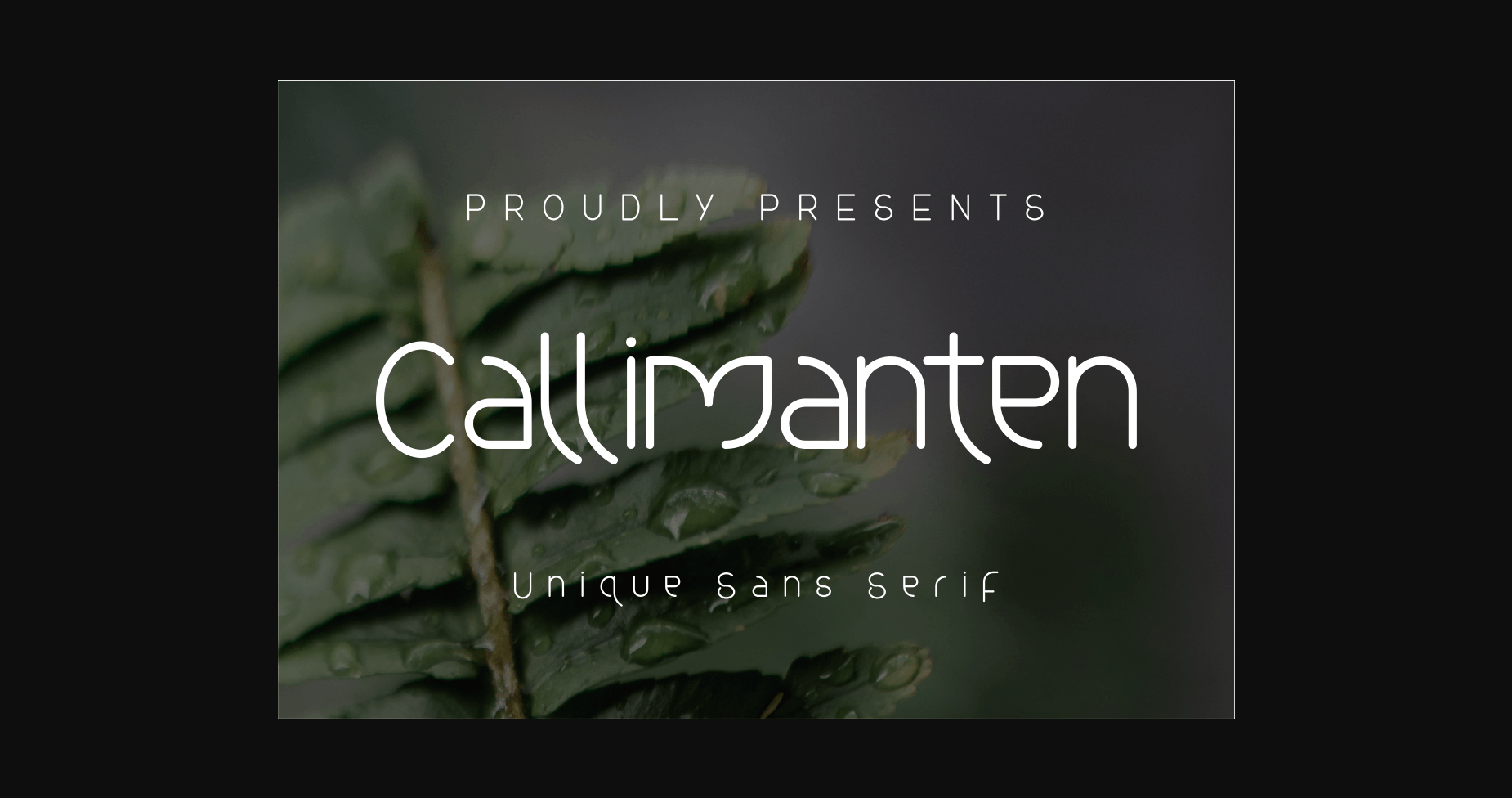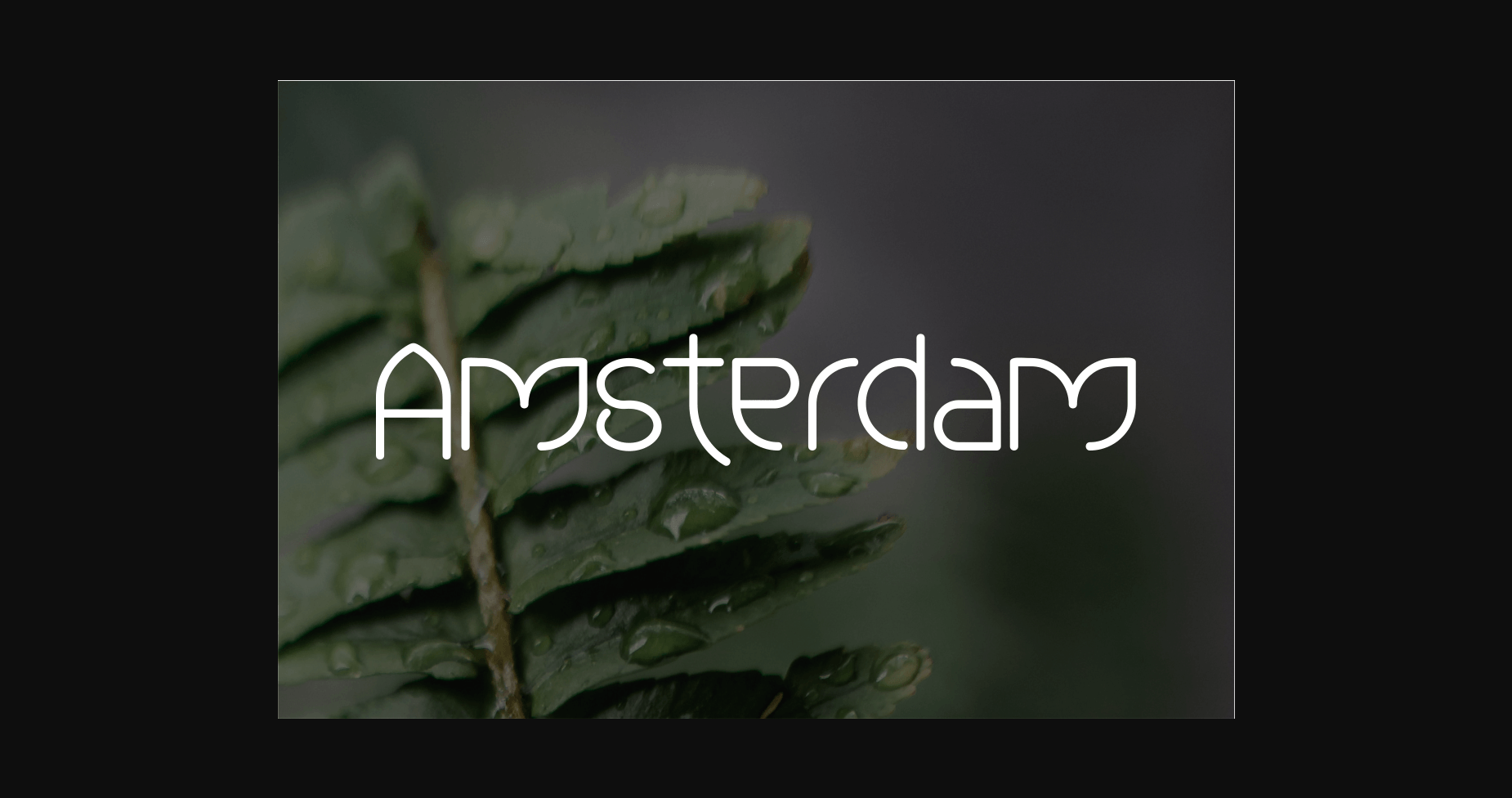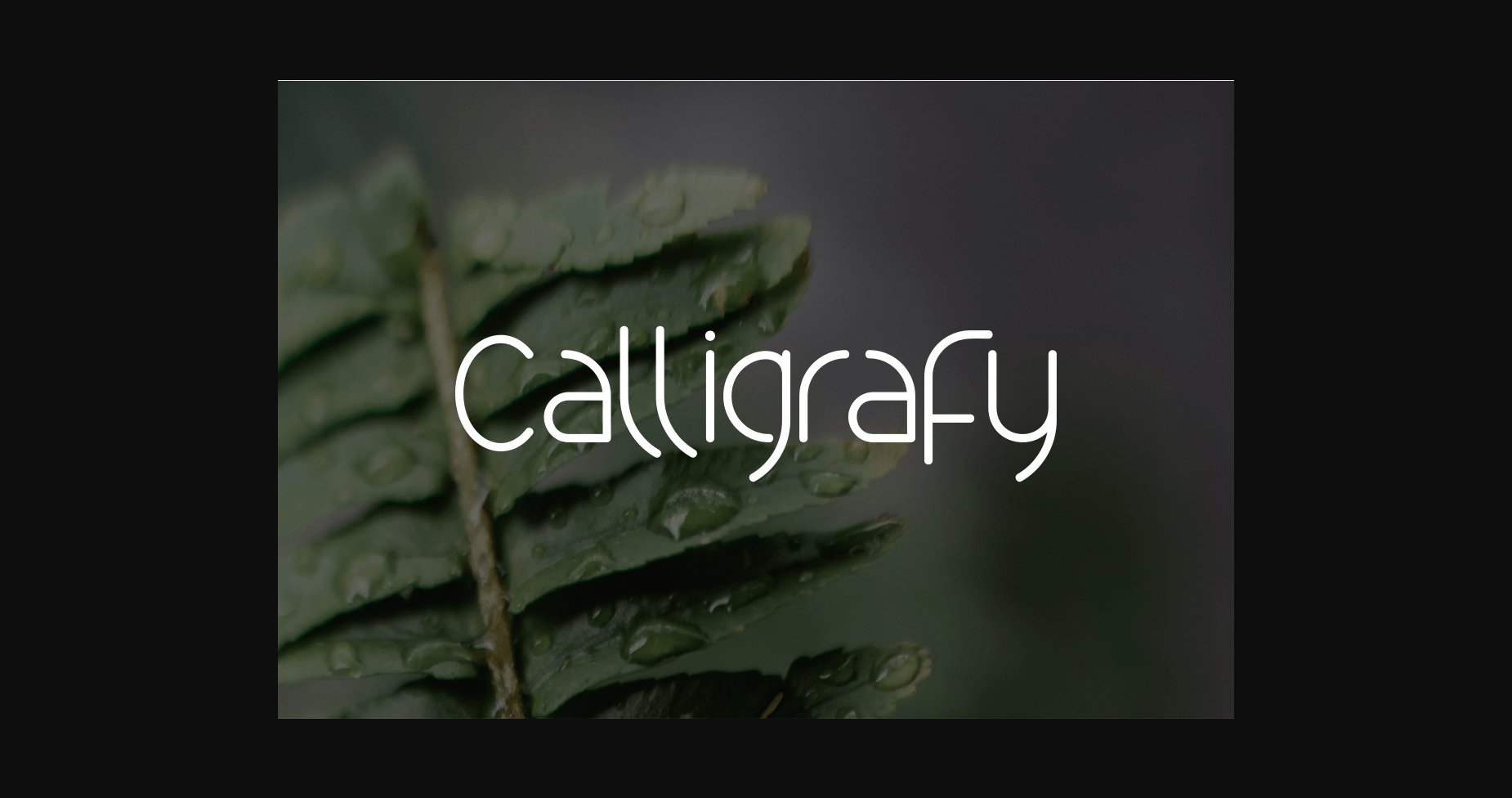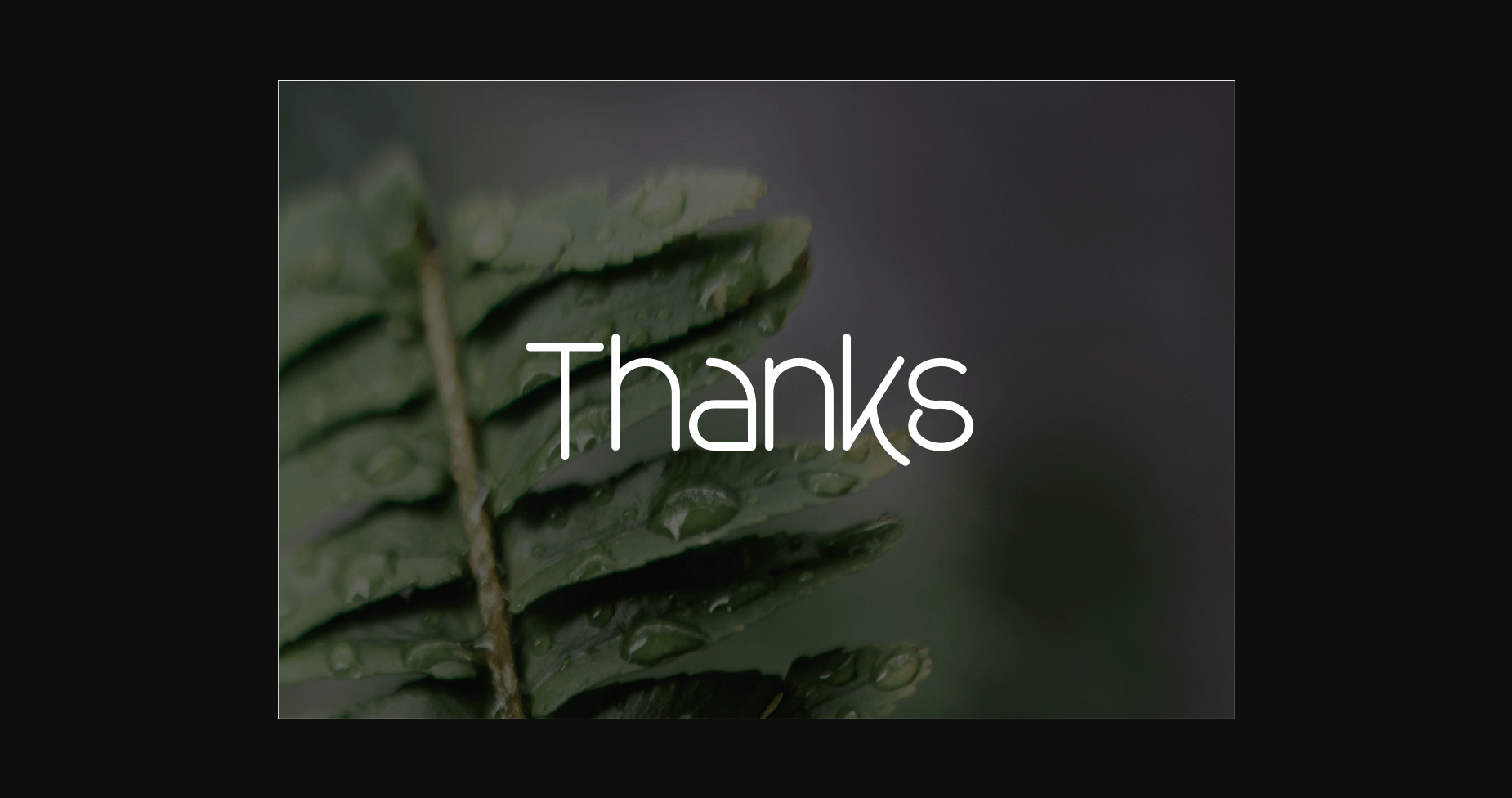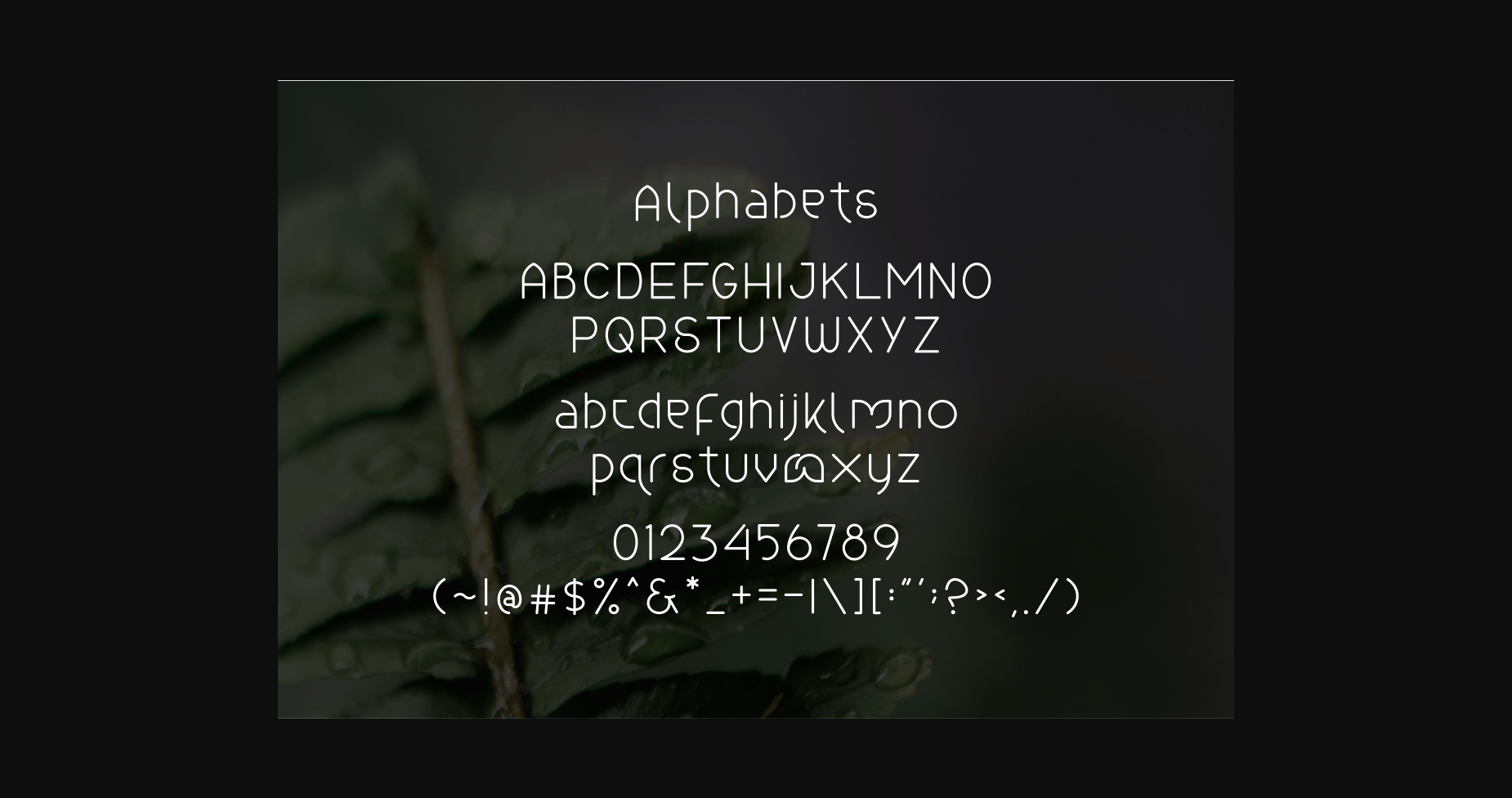
Callimanten Font
About Callimanten Font
Callimanten is a sans serif font that is curved like calligraphy but is lined so that its characteristics are still visible.
At first glance, it also looks like a Japanese font but is different because the uppercase uses the original Sans Serif Font. This font is unique and suitable for things related to new work.